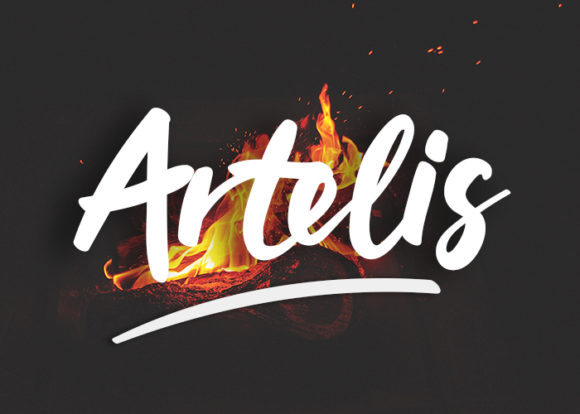
The Artelis Font: Elevate Your Designs with Elegance
I’ll never forget the time I was working on a wedding invitation design project, and my client asked for a font that exuded elegance and sophistication. I scoured the internet, tried out countless fonts, but nothing seemed to fit the bill. That was until I stumbled upon the Artelis font. With its unique, handwritten style and elegant movement, it instantly added a touch of grace to my design. In this article, I’ll share my experience with the Artelis font, its features, and how to make the most of it in your designs.
- ✨ Unique and elegant handwritten style
- ✅ Perfect for a variety of design projects, including branding, logos, wedding designs, and more
- 💫 Supports OpenType features, glyphs, and stylistic alternates
- 📸 High-quality and versatile, suitable for both digital and print designs
While the Artelis font is an excellent choice for many design projects, there are a few things to keep in mind:
- ⚠️ Limited availability of certain characters and glyphs in some software
- 🤔 May require some experimentation to get the desired look, especially for beginners
The Story Behind Artelis Font
The Artelis font was designed with the intention of creating a unique and elegant handwritten font that would add a touch of sophistication to any design. The designer aimed to craft a font that would be versatile and suitable for a wide range of projects, from branding and logos to wedding designs and social media posts.
Q: What type of designs is the Artelis font best suited for?
A: The Artelis font is perfect for branding projects, logos, wedding designs, social media posts, advertisements, product packaging, product designs, labels, photography, watermarks, and any other design that needs a striking touch.
Q: Is the Artelis font easy to read?
A: Yes, the Artelis font is designed to be elegant and legible, making it easy to read in various sizes and applications.